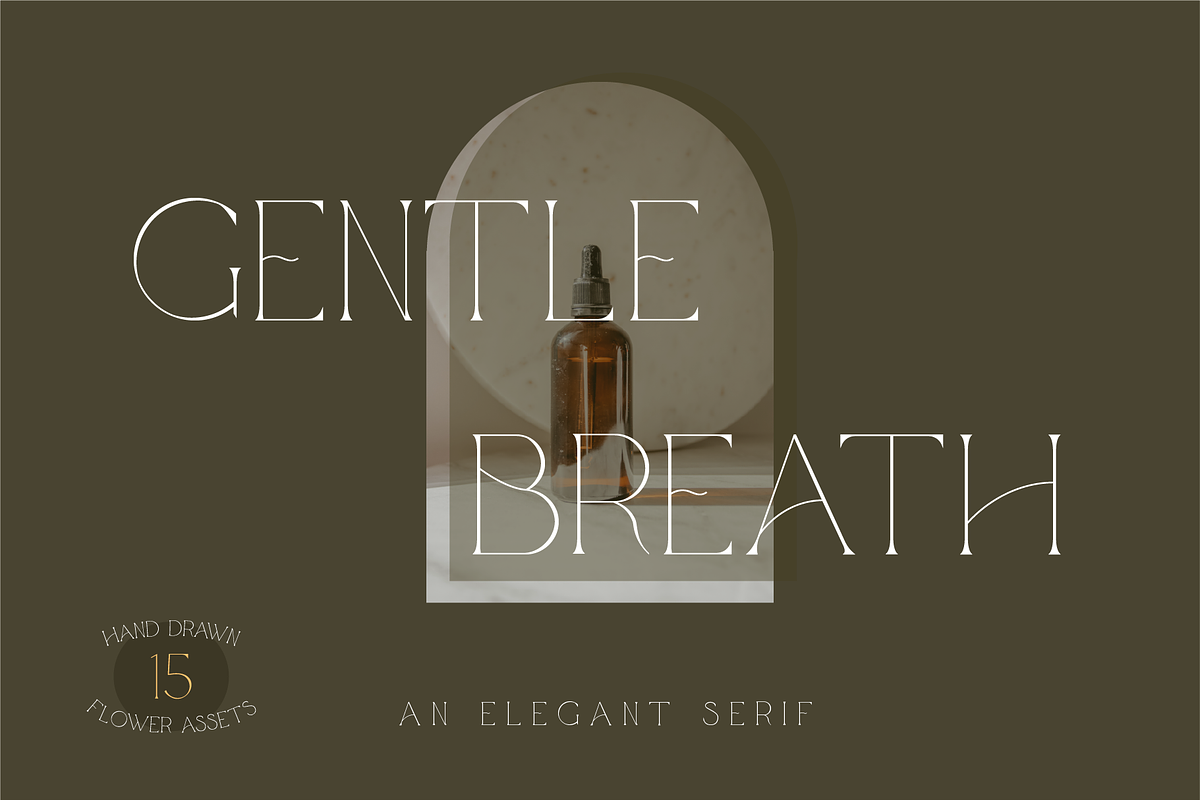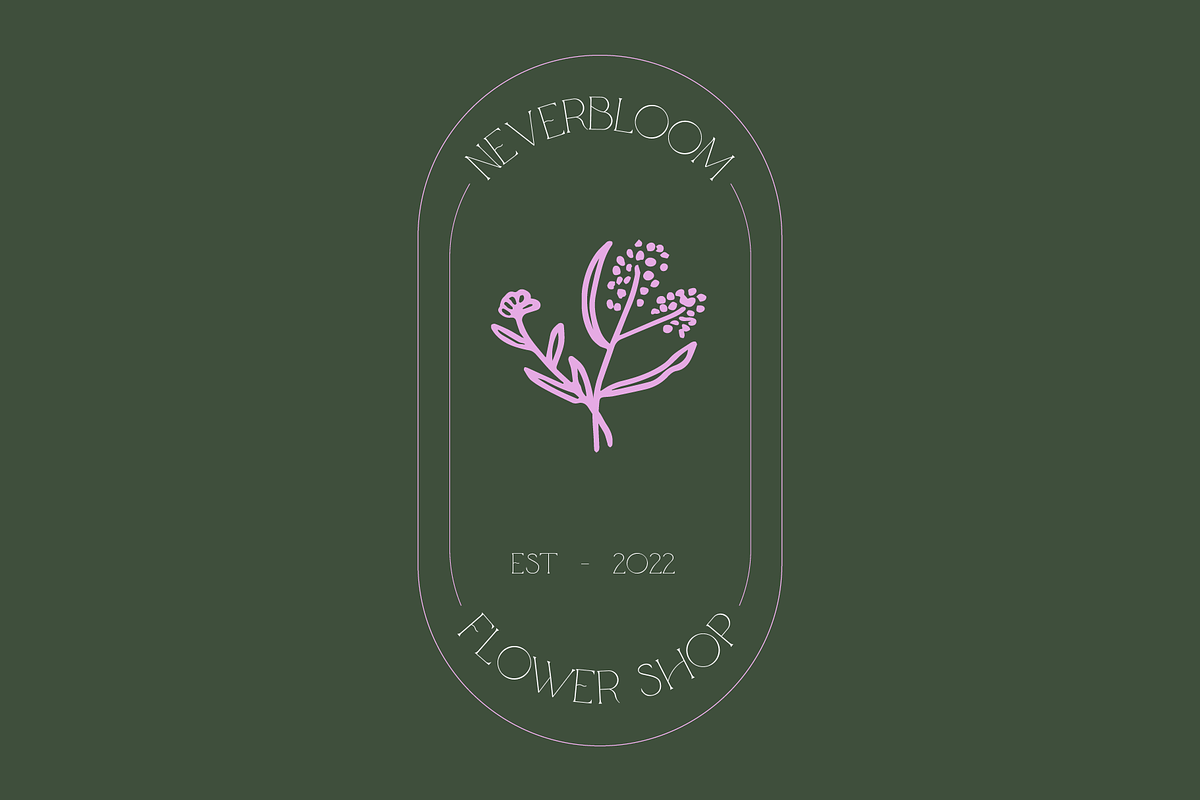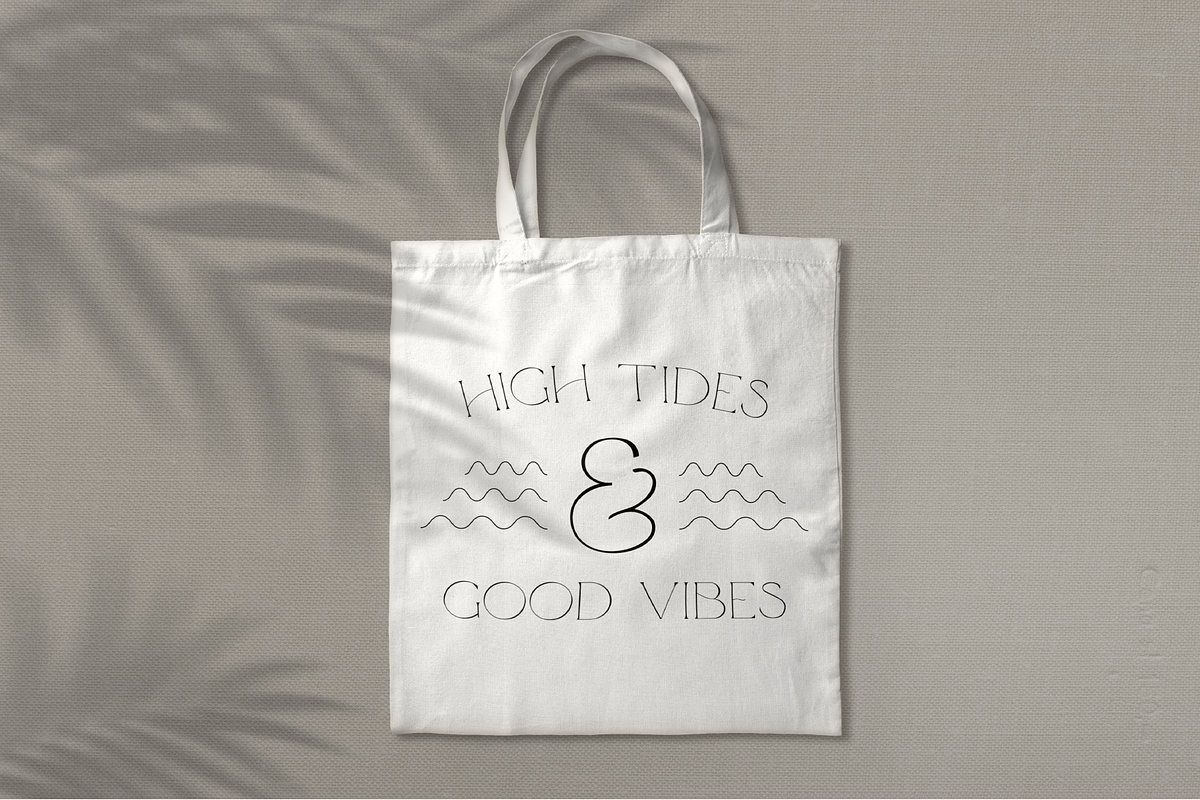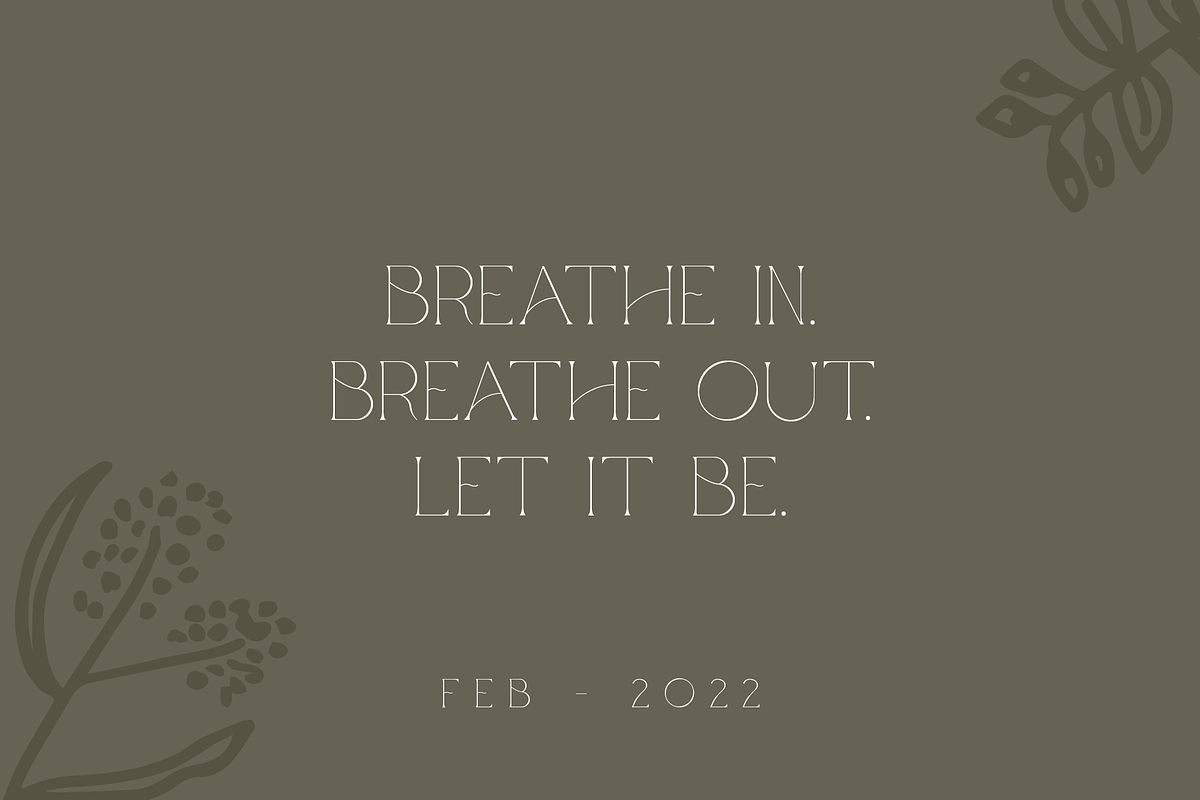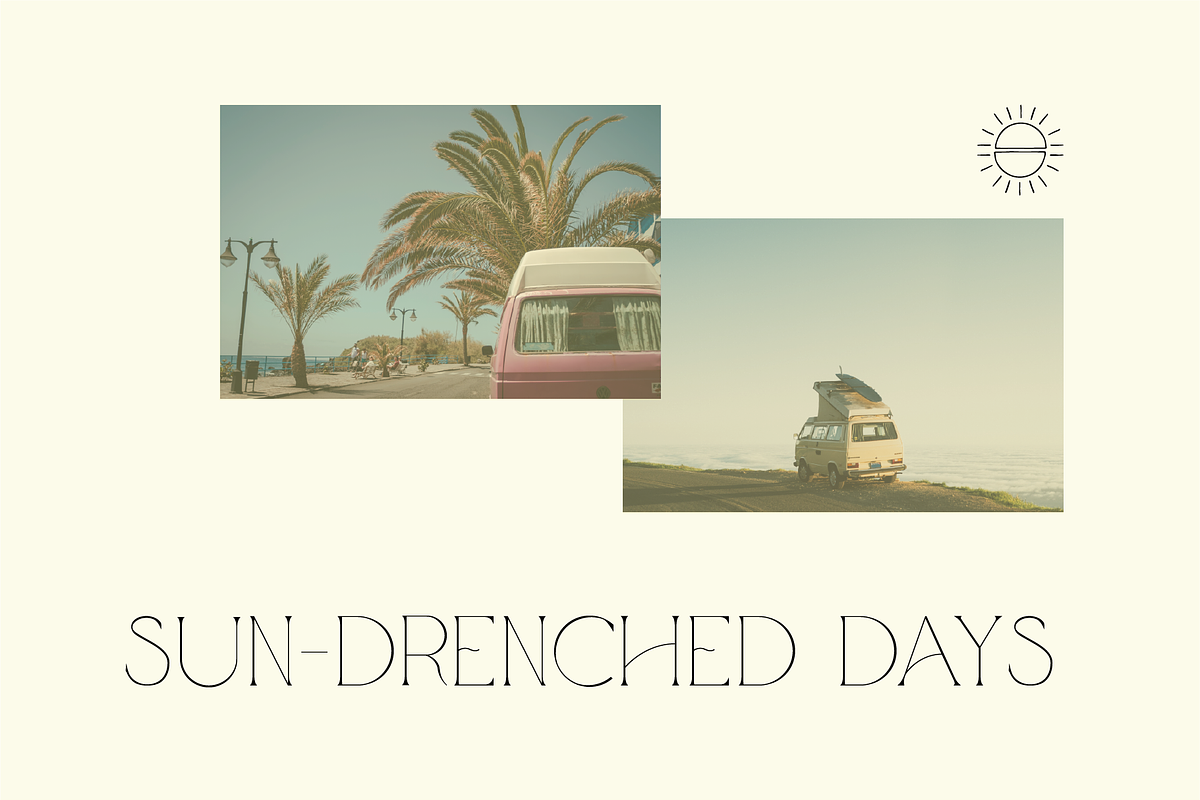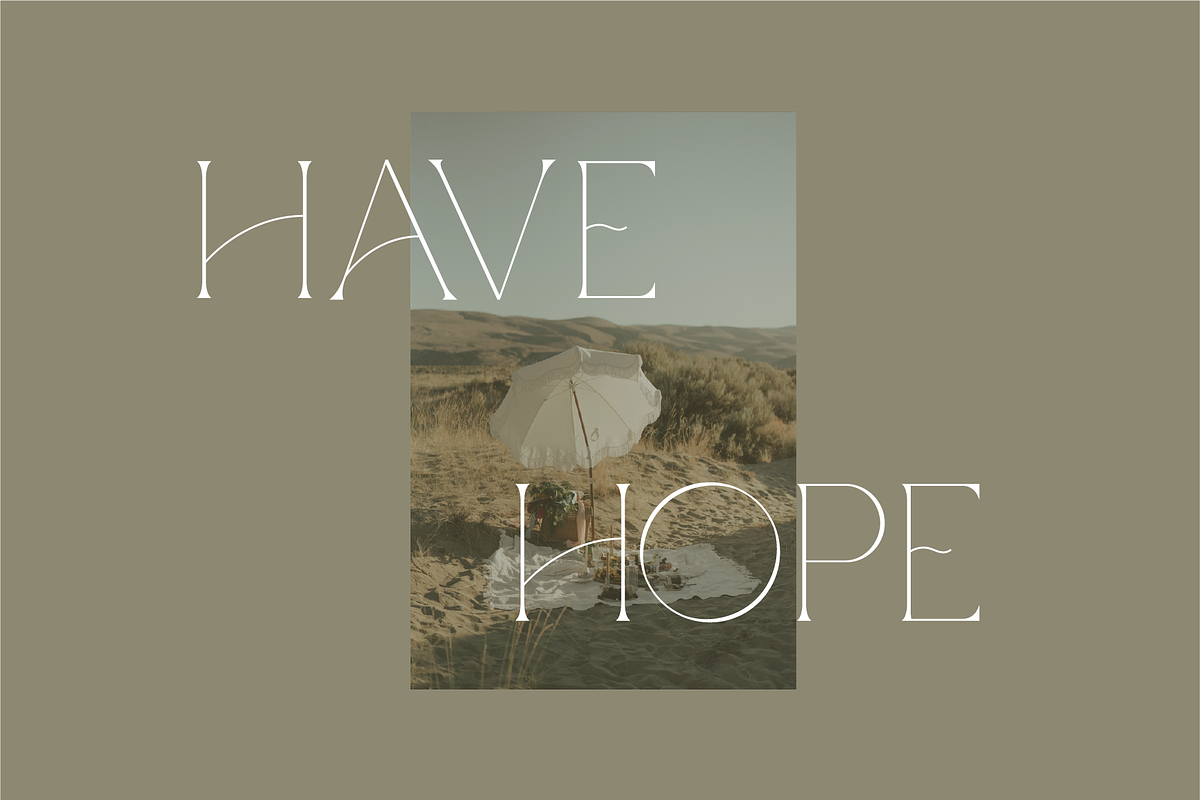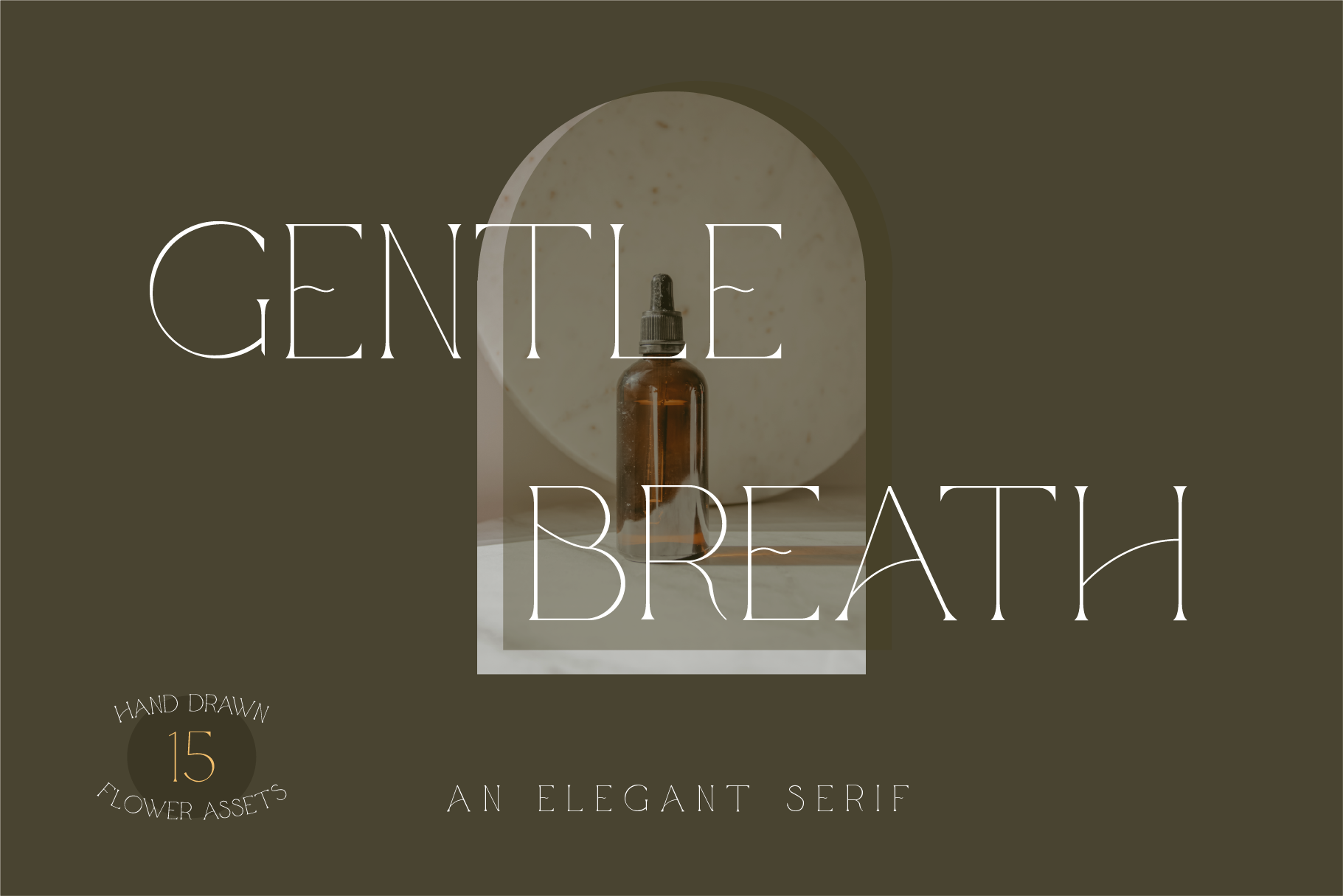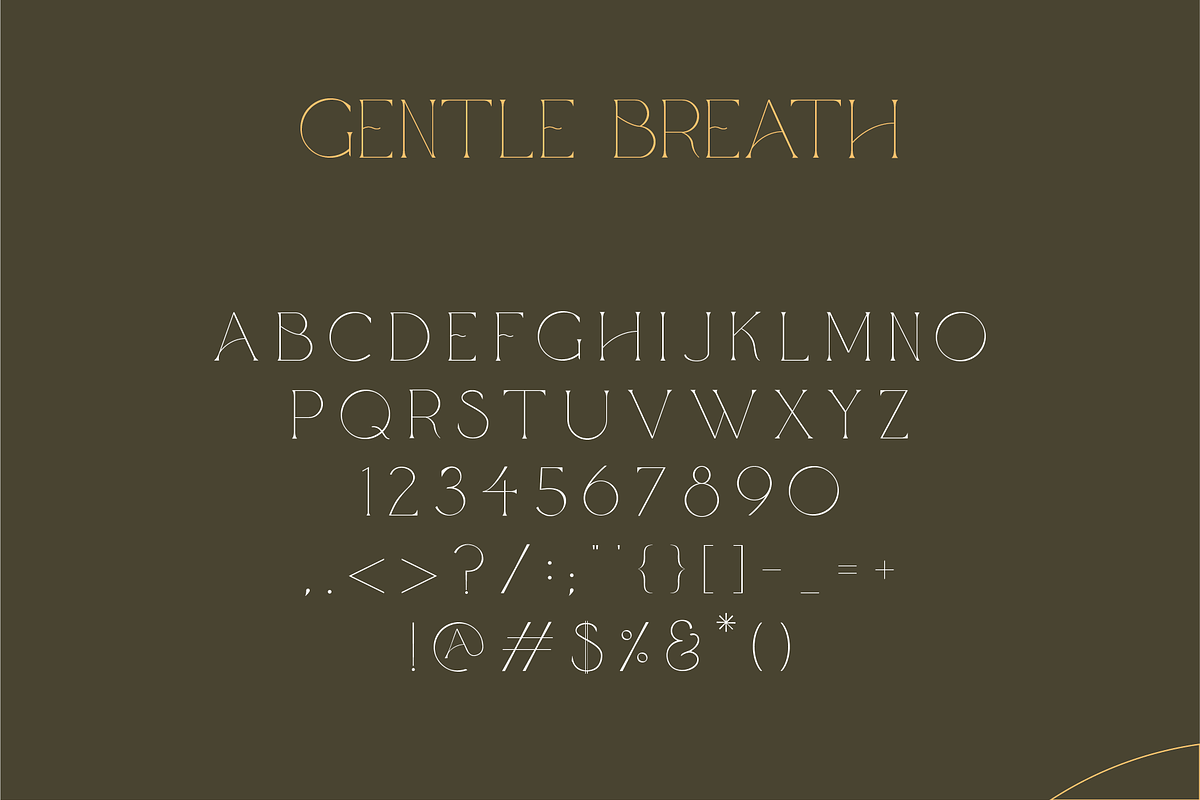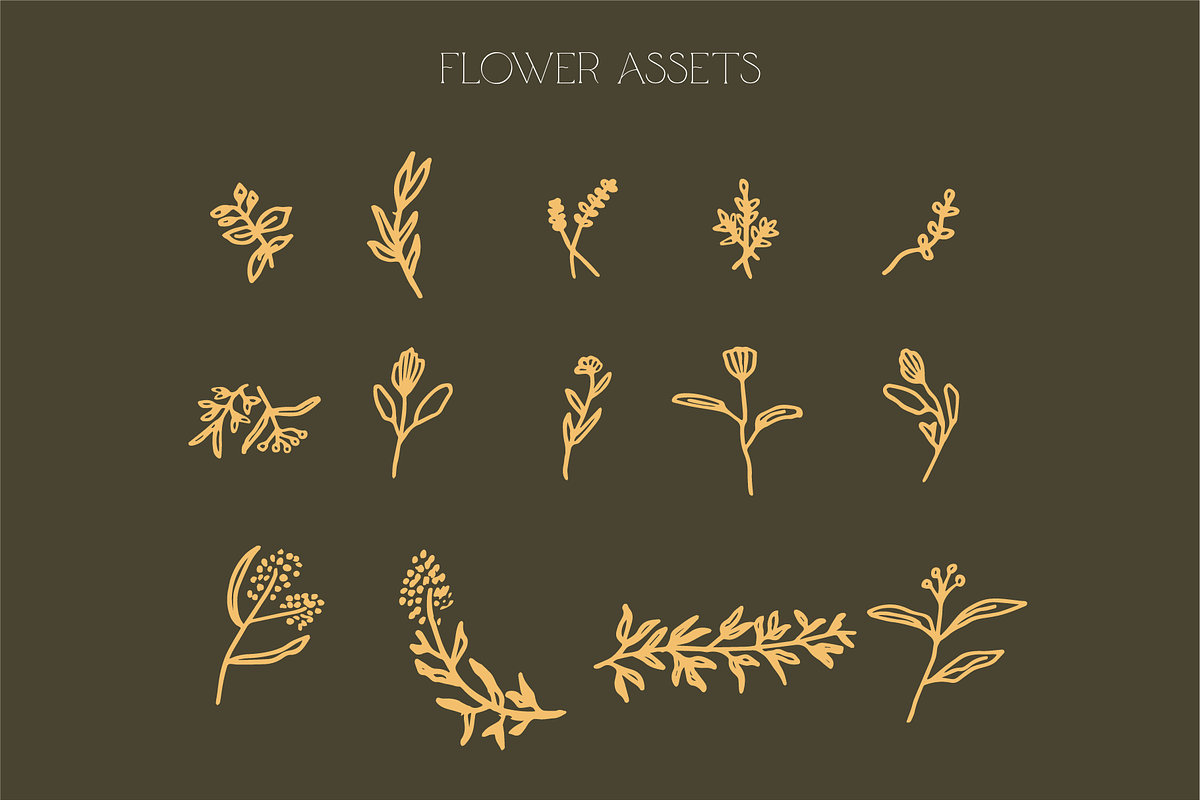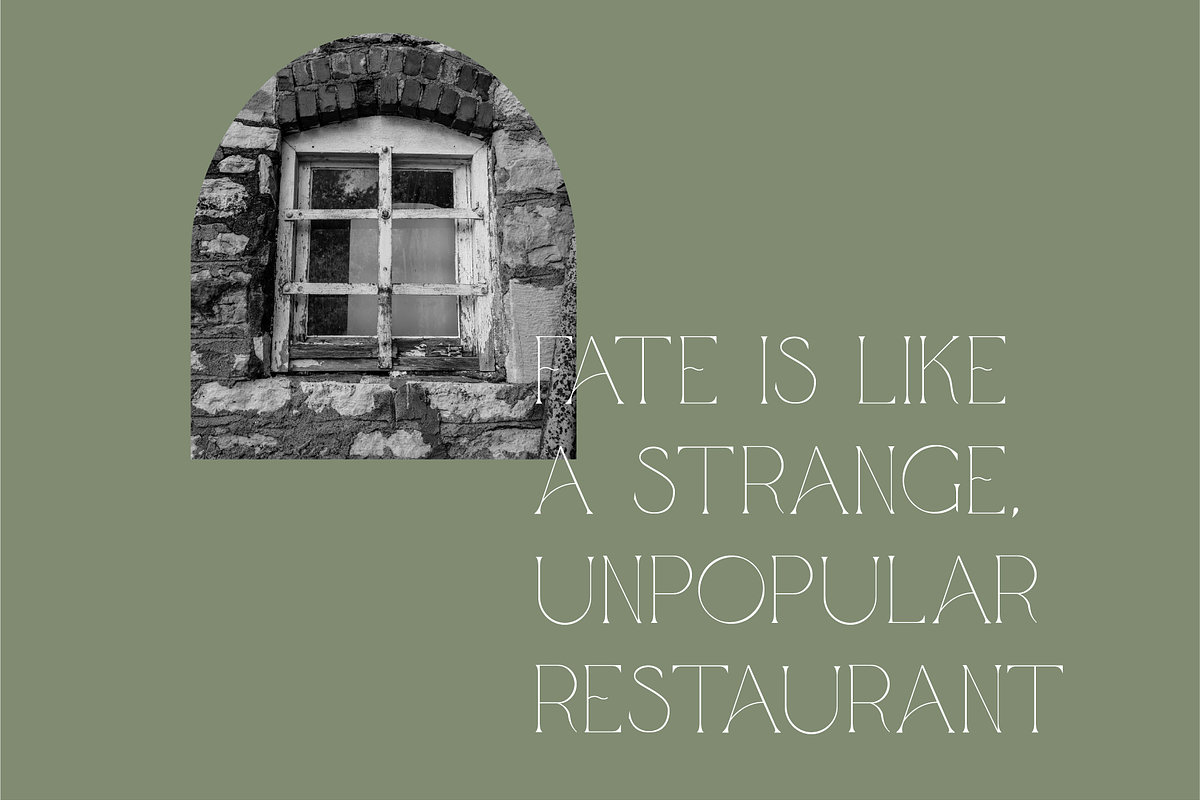
Gentle Breath - Serif Font + Vectors
Gentle Breath - An Elegant Serif + 15 Flower Vector Assets
Introducing Gentle Breath, an elegant serif font. Capturing the perfect blend of minimalist simplicity and sleek modernism, Gentle Breath will add an air of sophistication to your next project. This font bundle also includes 15 hand-drawn flower assets, for added character and illustration in your designs.